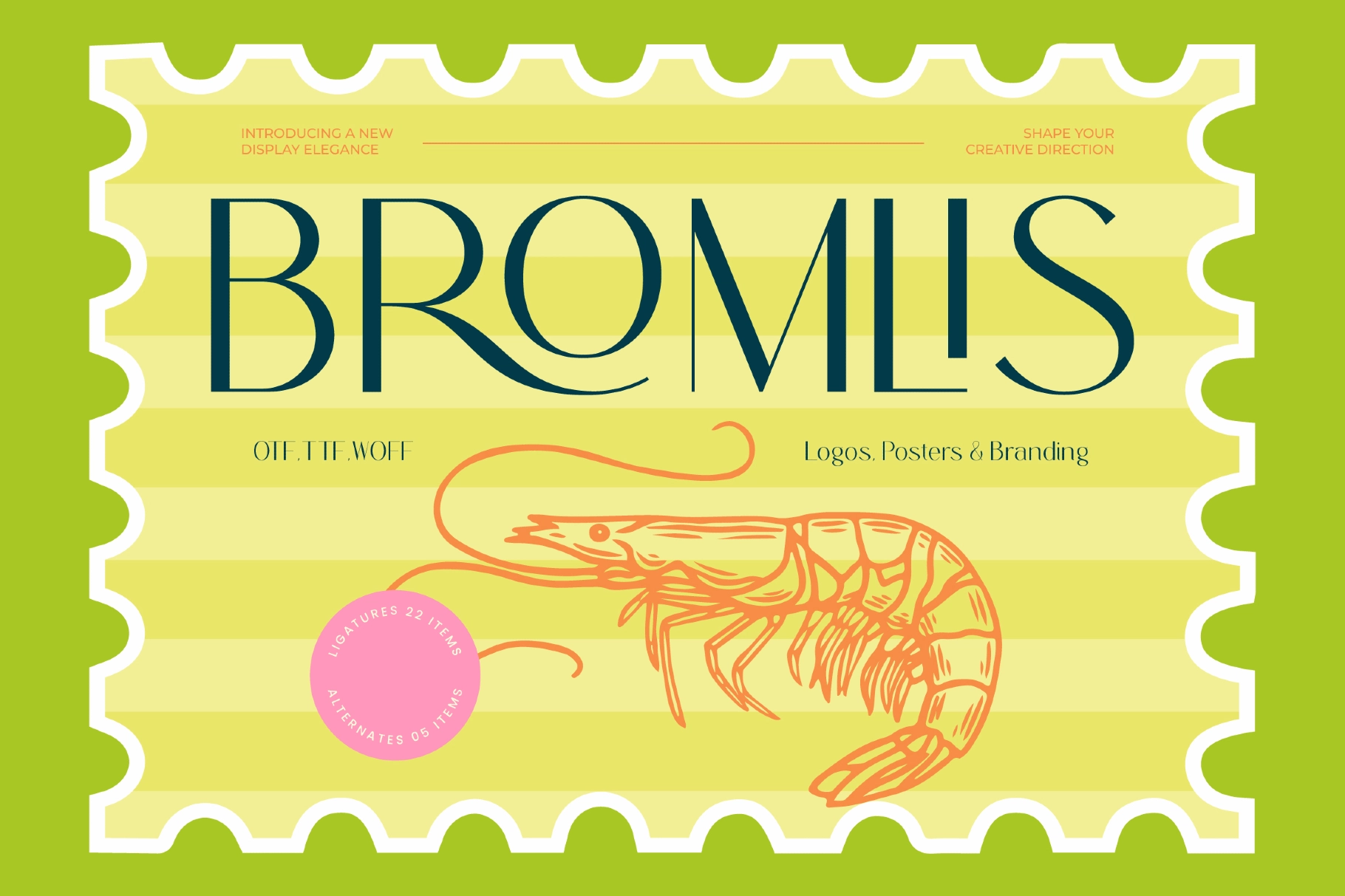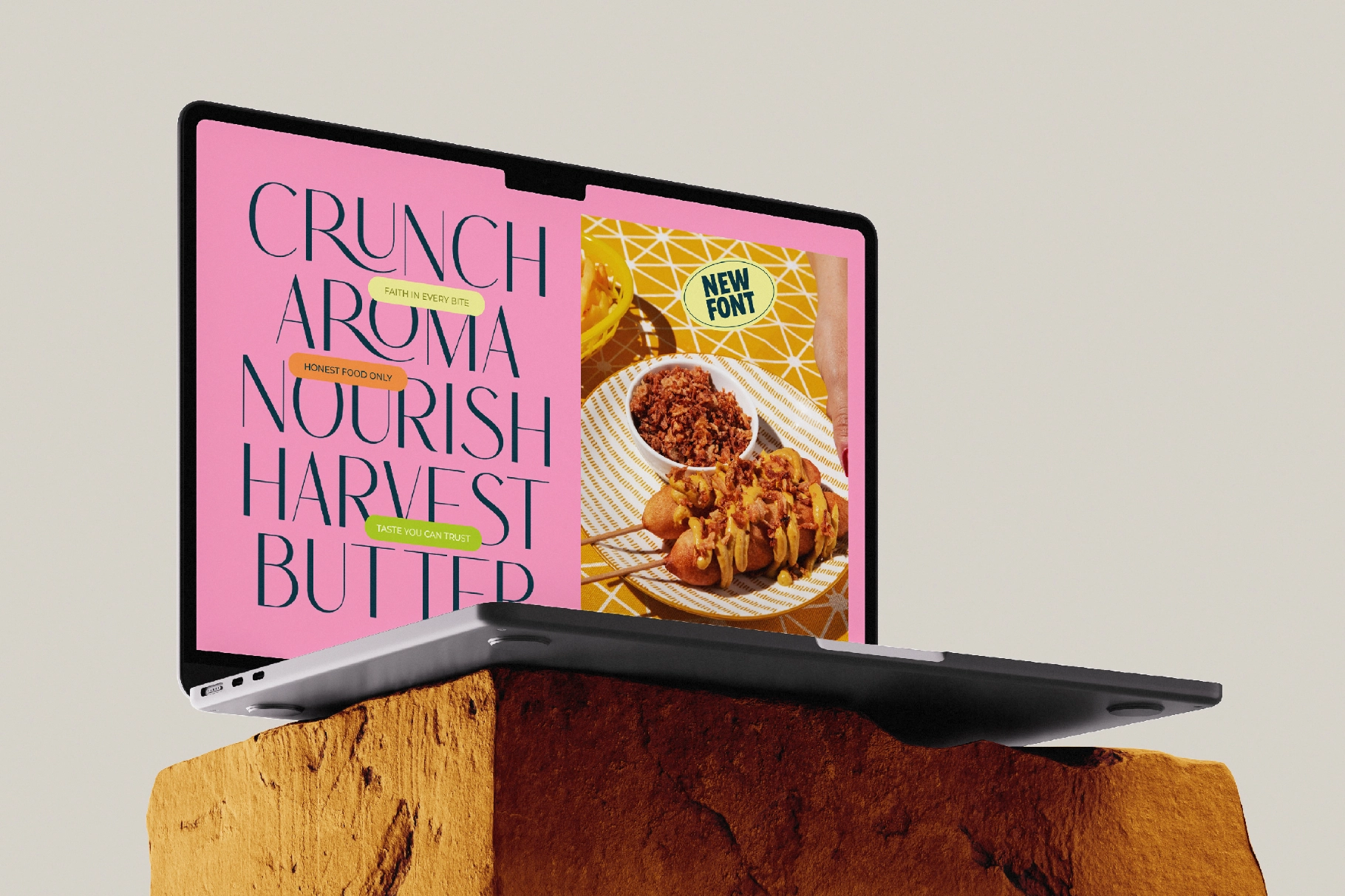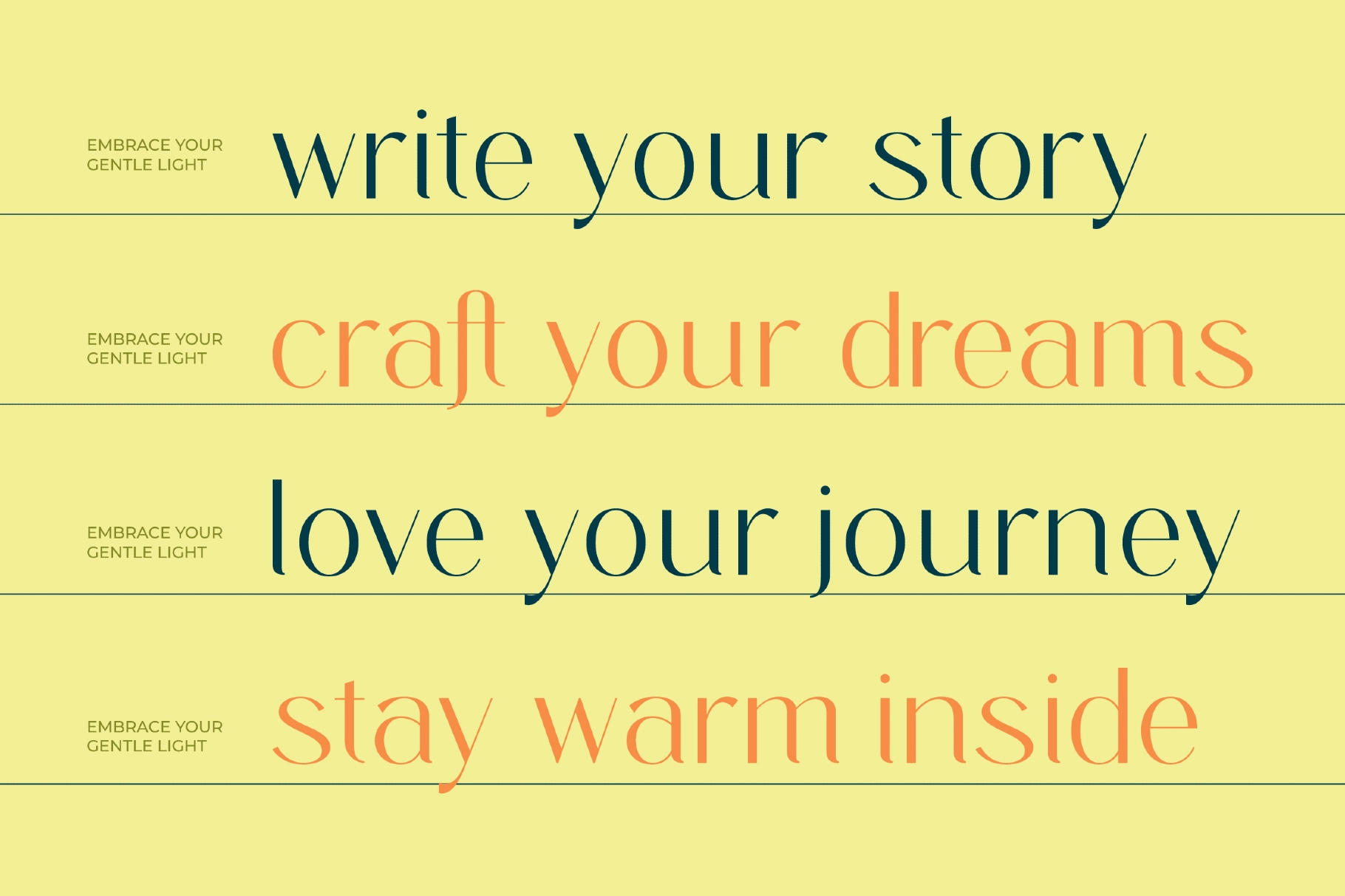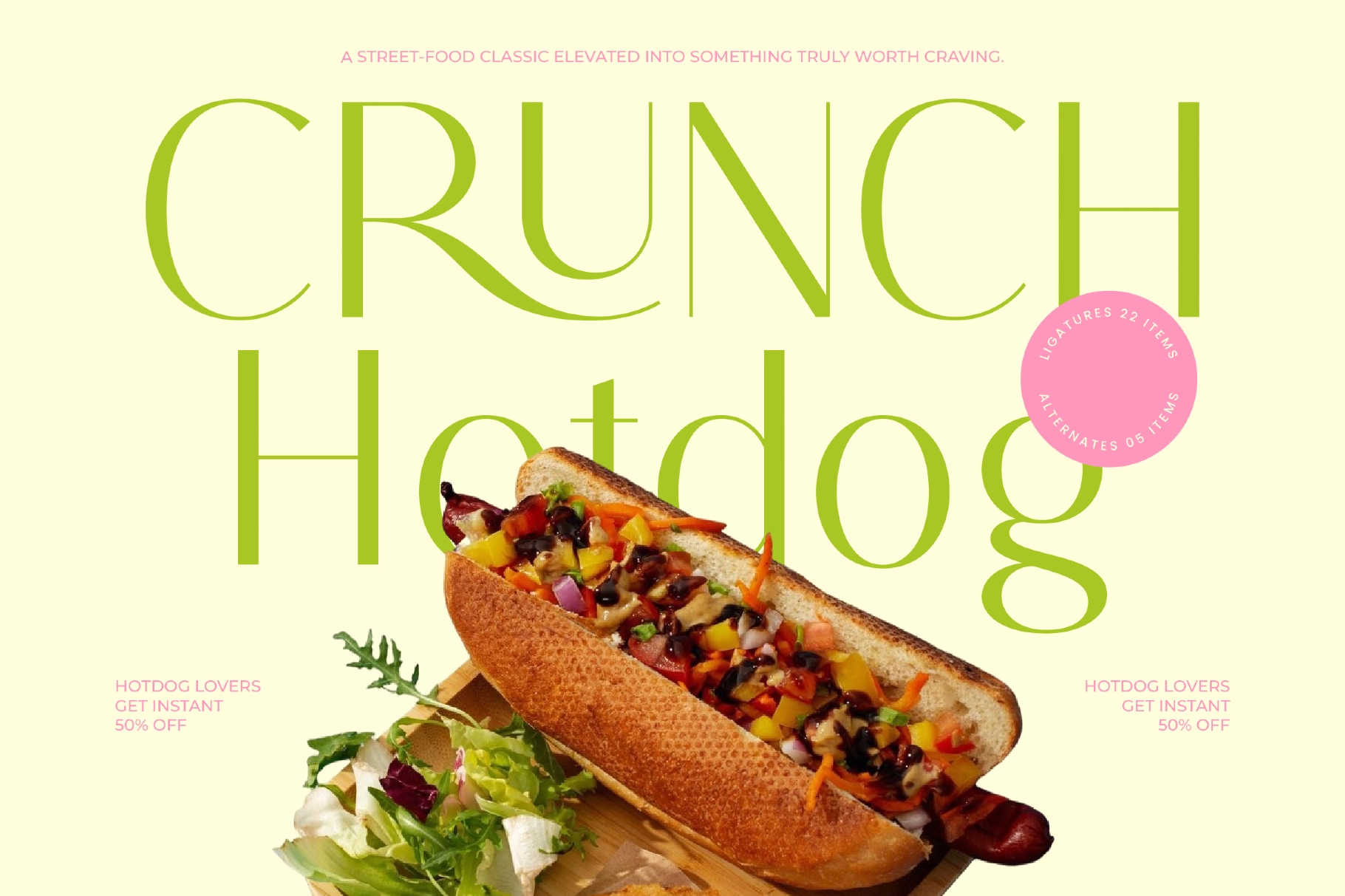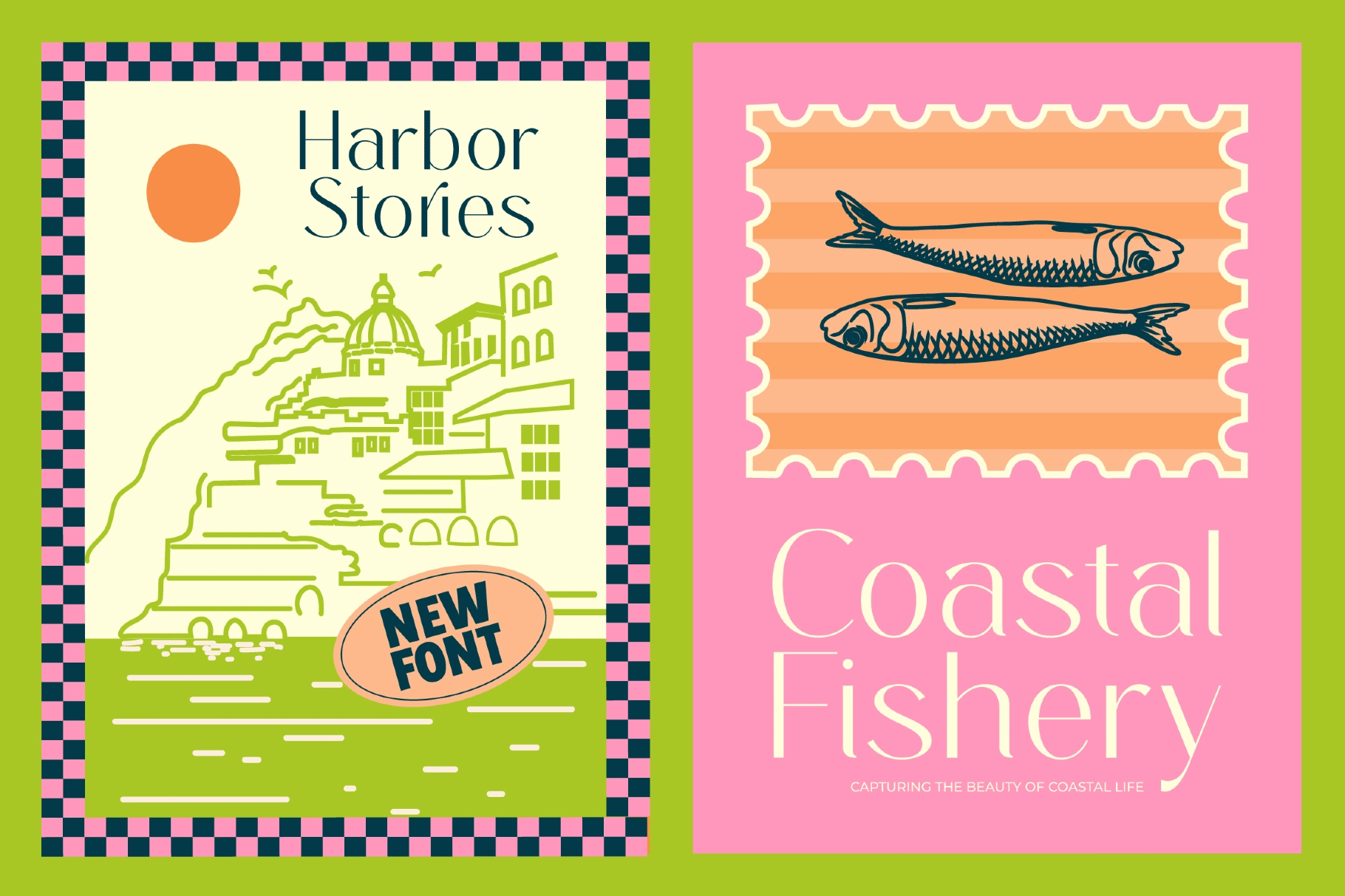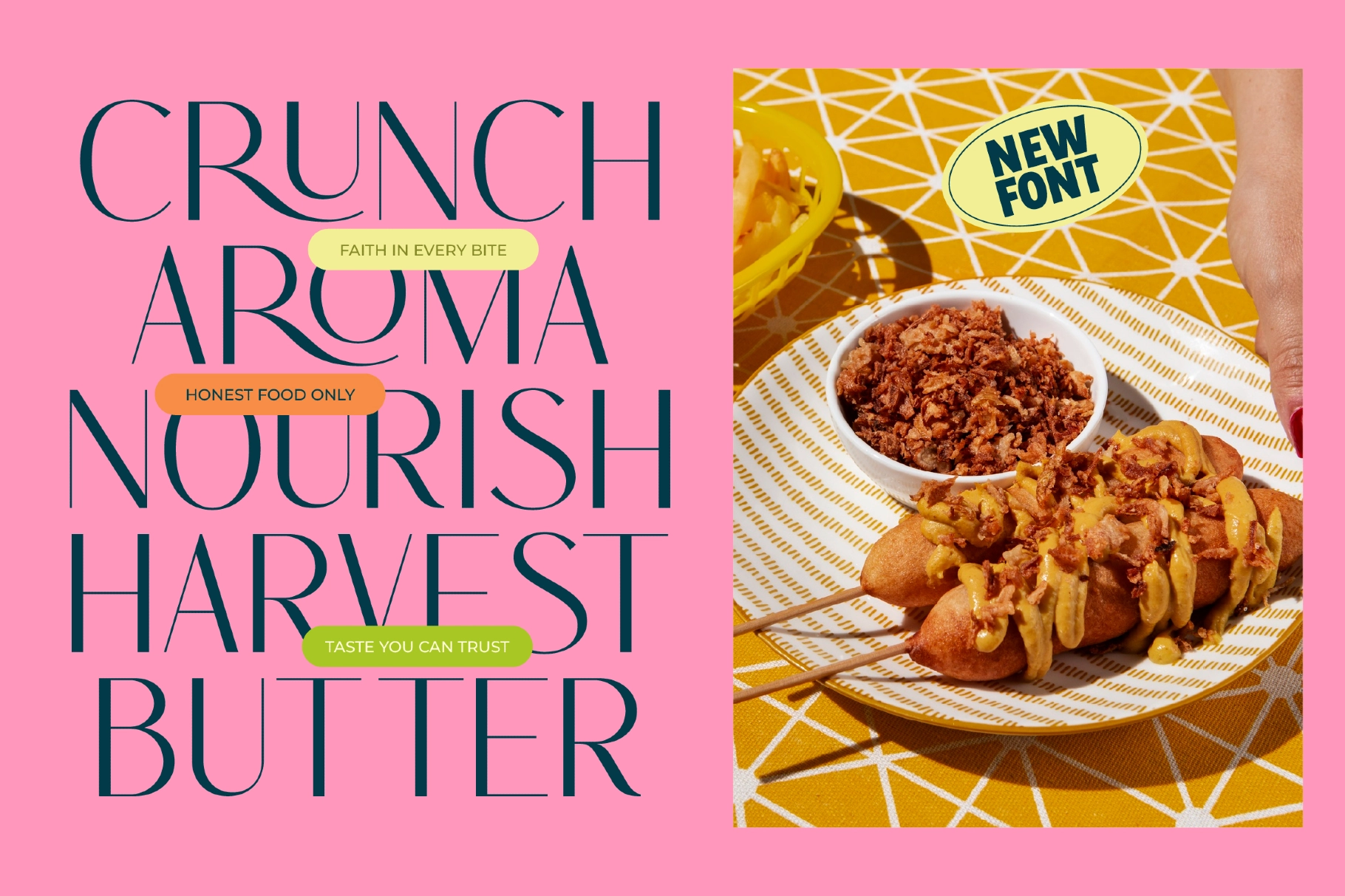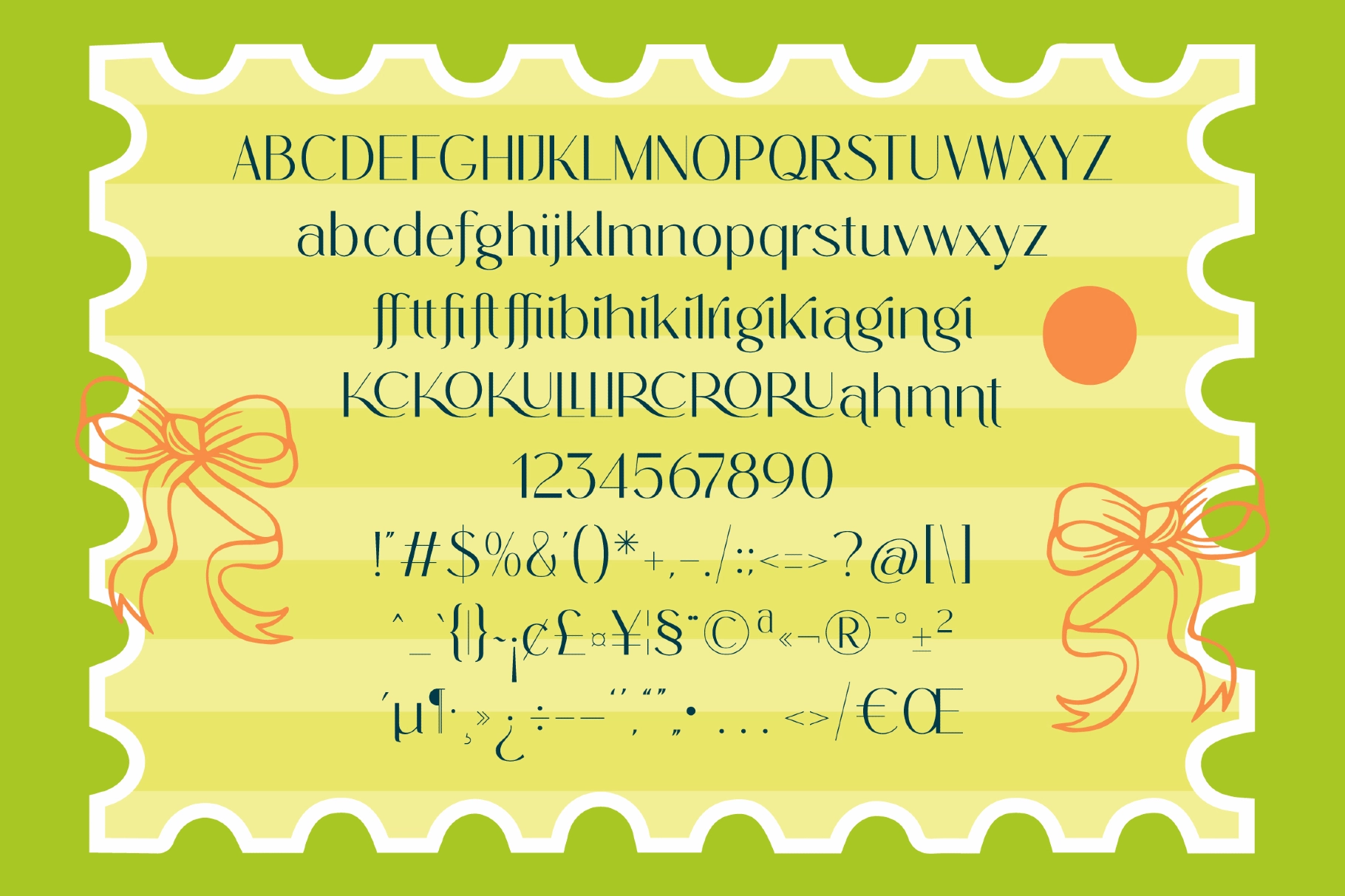
Bromlis - Elegant Display Sans Serif Font
This elegant sans serif font is all clean curves, slim contrast, and calm editorial polish. Its tall forms and graceful cuts give headlines a composed look, with enough personality to keep logos, packaging, and campaign visuals from sounding like they were approved by six committees.
Bromlis works for brand identities, restaurant menus, boutique logos, product packaging, magazine titles, beauty campaigns, wellness labels, wedding stationery, poster layouts, social media quotes, website headers, and premium merch. The ligatures and alternates add a softer custom rhythm, making it useful for display typography that needs to look precise, stylish, and easy to read.
- 22 Ligatures
- 5 Stylistic Alternates